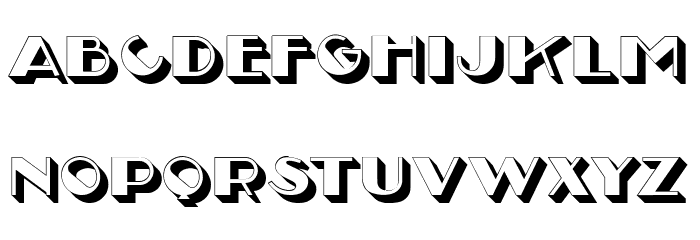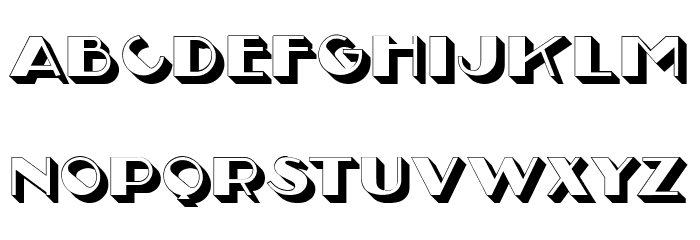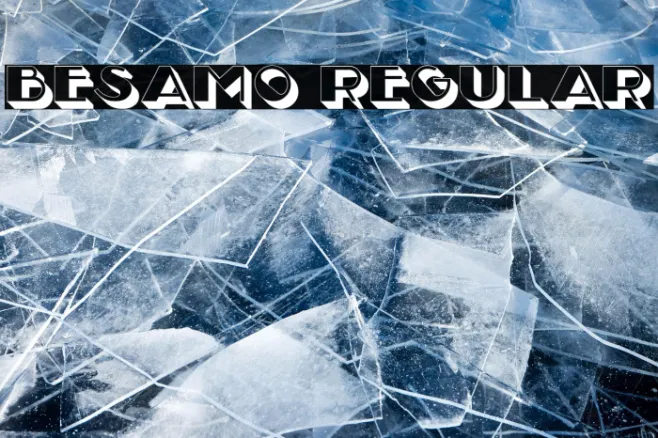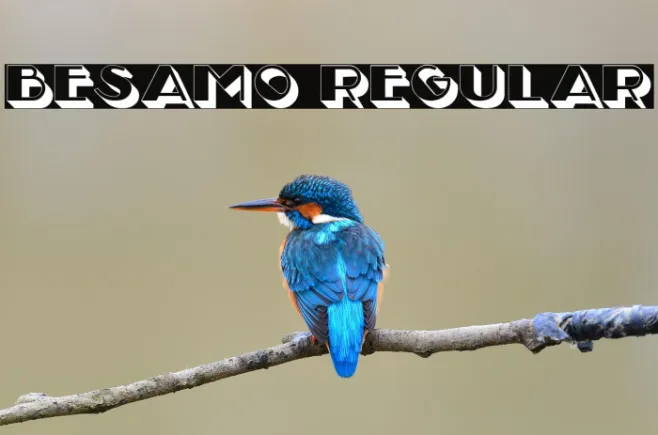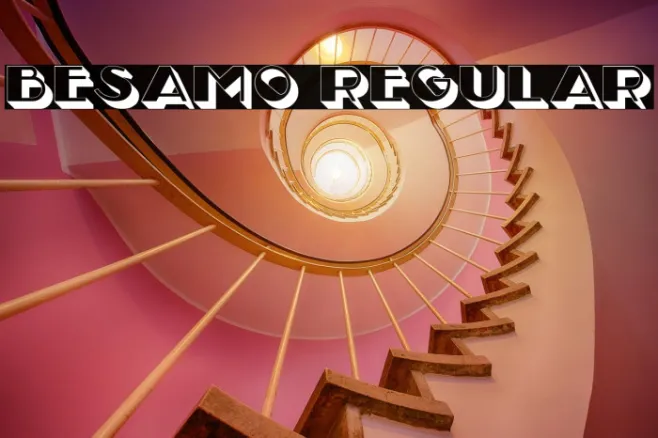
Besamo Regular Font
This font features a bold and striking 3D effect, with each character appearing to have a shadow that adds depth and dimension. The letters are uppercase and have a geometric, blocky style that is both modern and eye-catching. The design is clean, with sharp edges and a consistent thickness throughout each character, enhancing its readability. The shadow effect is consistent across all characters, giving the font a cohesive and unified look. This font is ideal for making a strong visual impact in any design.
A bold, 3D geometric font with a modern and eye-catching style.
- Proposed Projects: Ideal for headlines, posters, logos, and any project needing a bold visual impact.